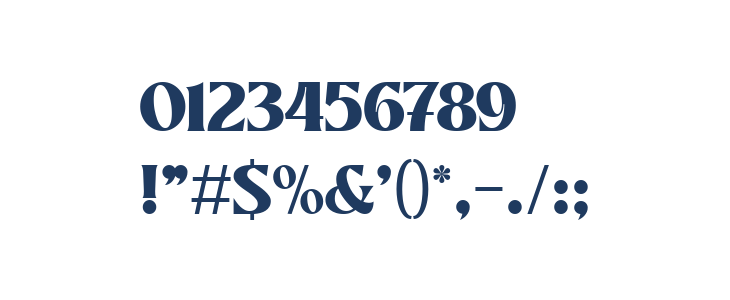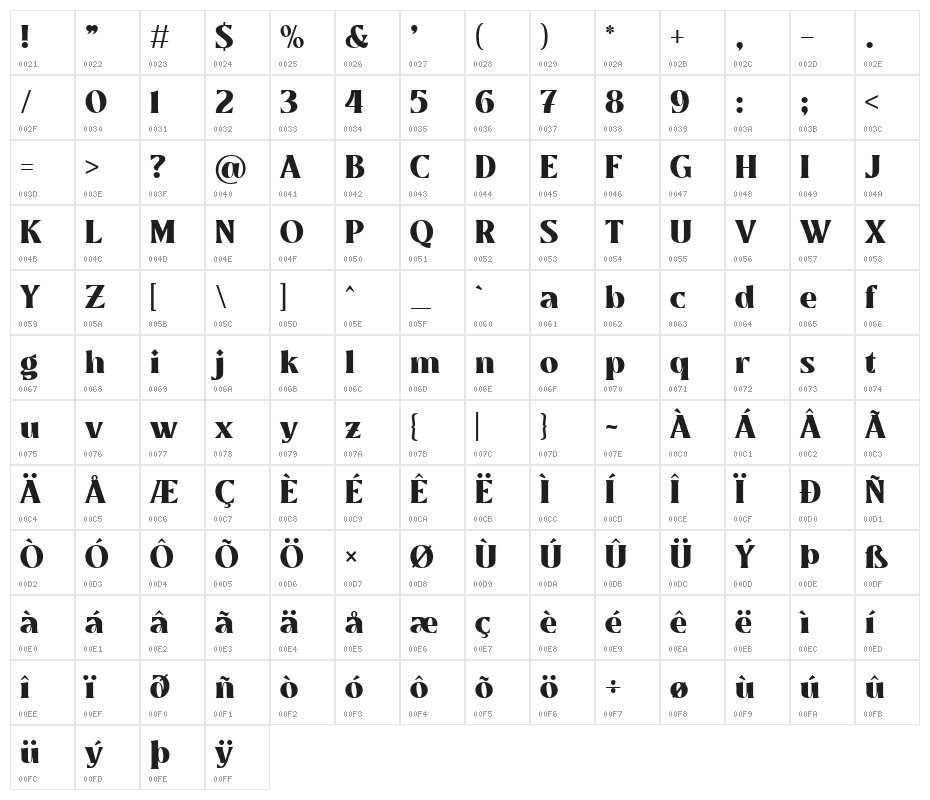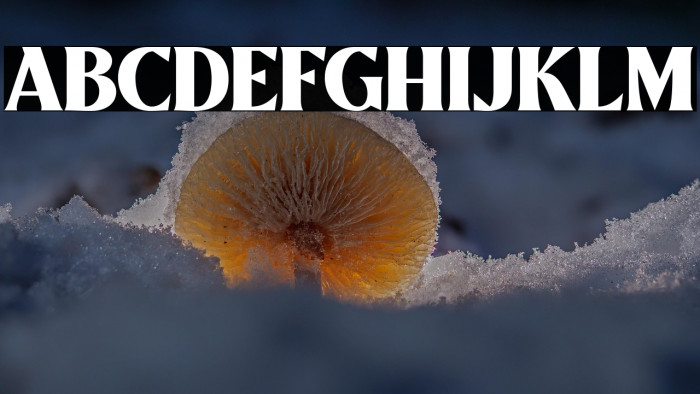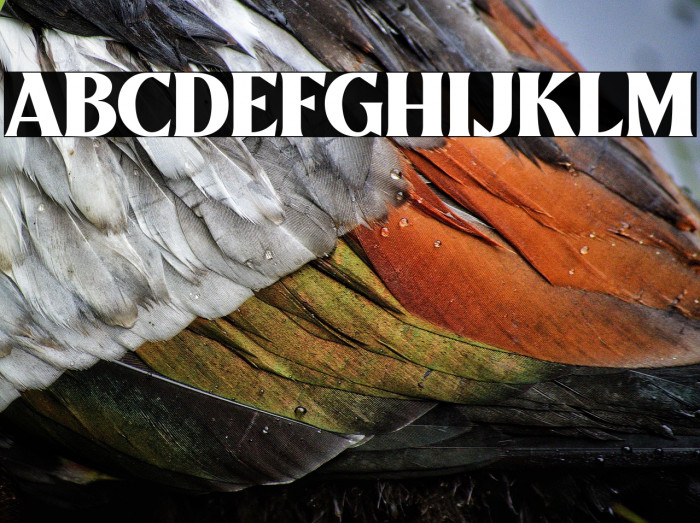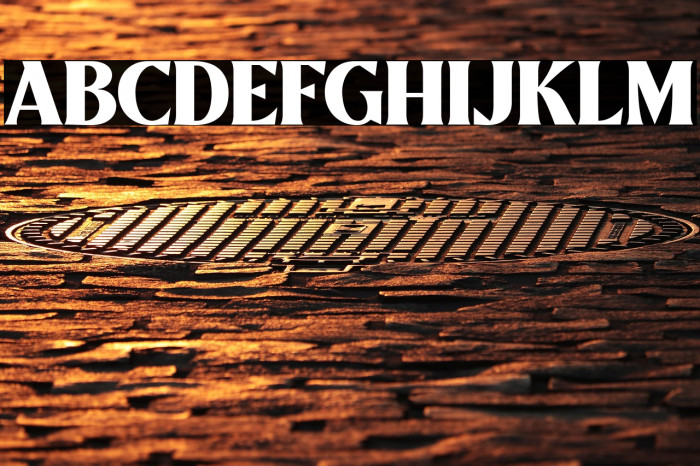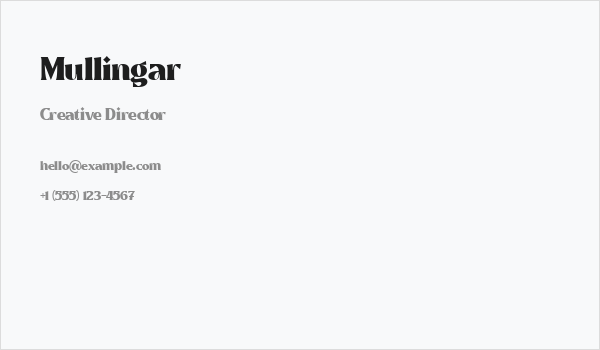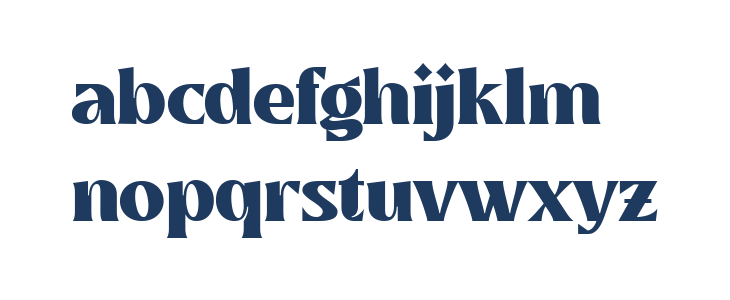
Mullingar Font
Mullingar Description
This font features a bold and striking design with a strong presence. The characters are crafted with thick strokes and sharp serifs, giving it a commanding and authoritative appearance. The uppercase letters are particularly robust, with a slight curvature that adds a touch of elegance. The lowercase letters maintain the boldness, with a consistent weight throughout. Numbers are equally bold, ensuring readability and impact. Special characters are designed to match the overall style, making them suitable for various applications. The font's design is reminiscent of traditional serif styles but with a modern twist, making it versatile for both classic and contemporary projects.
| Proposed Projects | This font is perfect for headlines, posters, branding, and any project requiring a strong visual impact. |